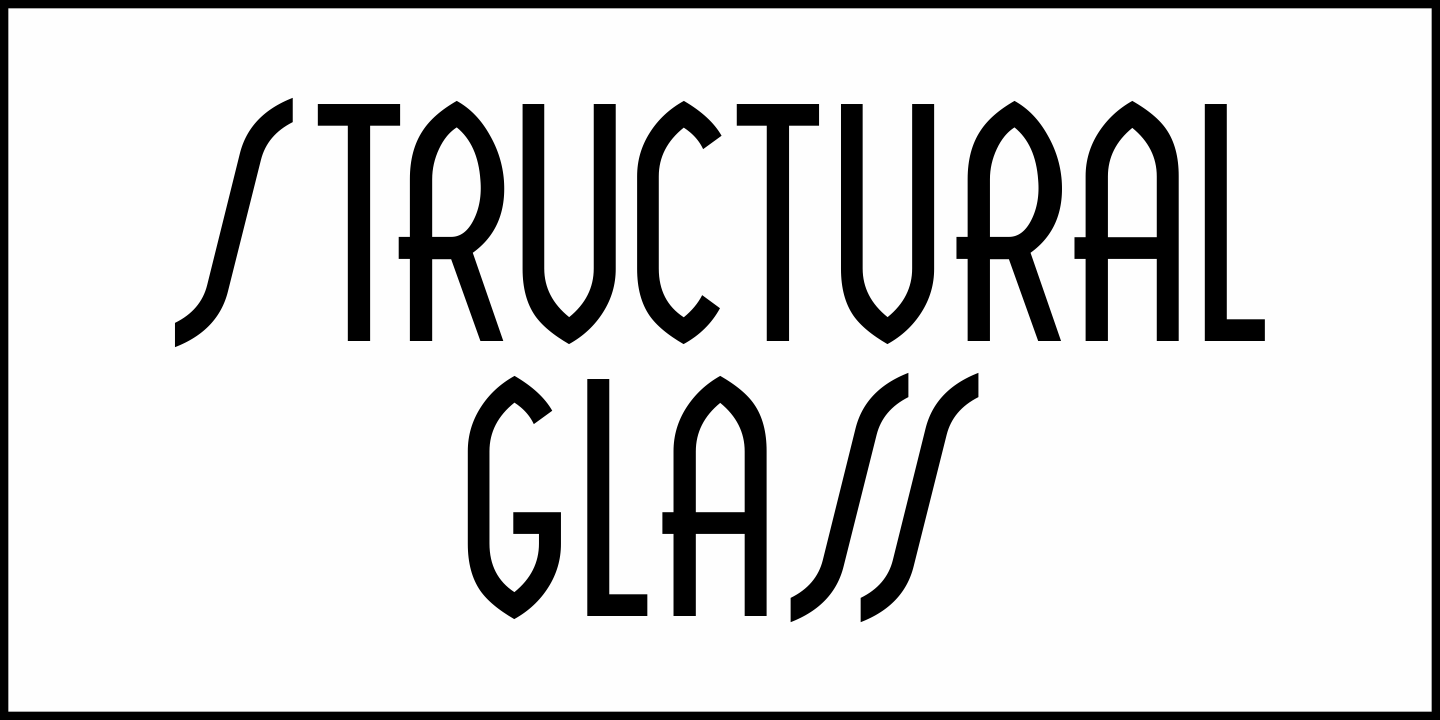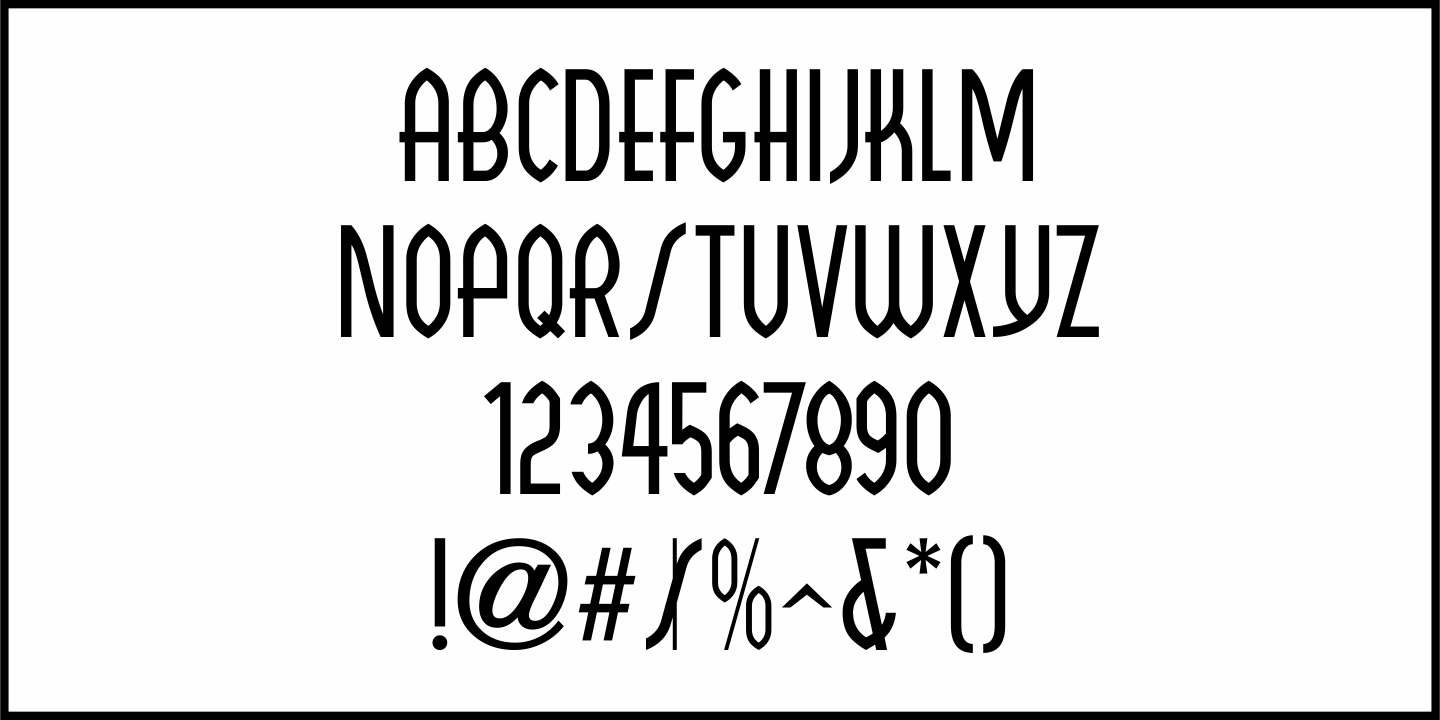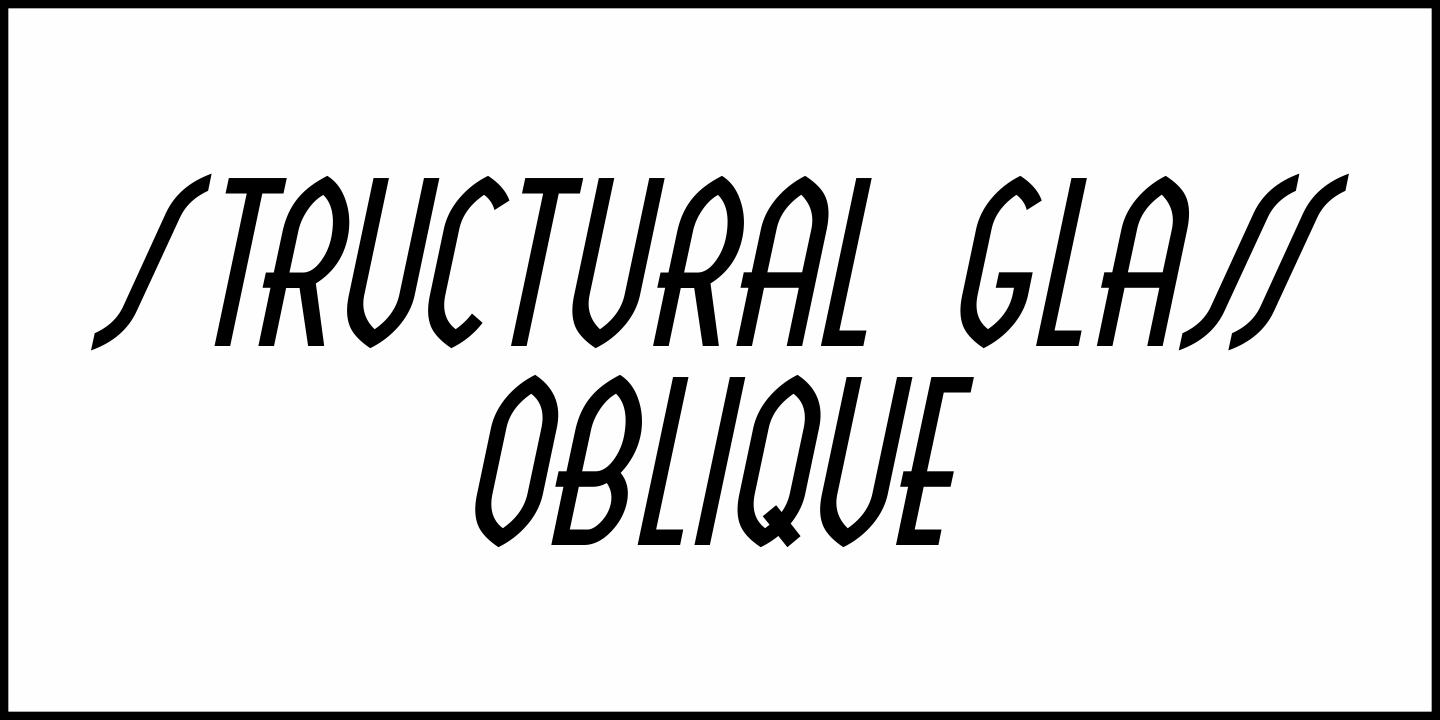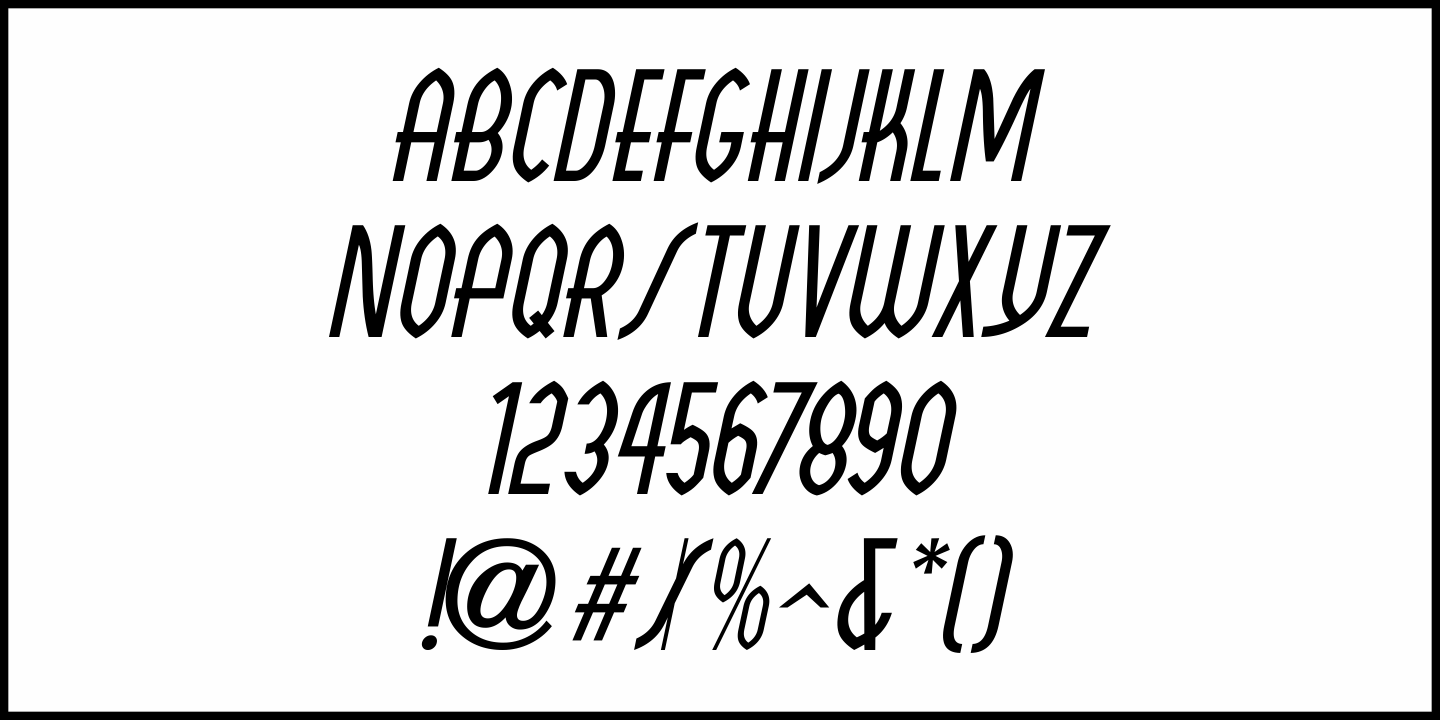
Structural Glass
A page from the 1931 Vitrolite catalog showing illustrations of store fronts and building exteriors utilizing the material provided a classically Art Deco type example.
The business name “Sylvin” did not offer many characters to work with, so completion of the digital type design was simply left to imagination.
The end result is Structural Glass JNL, which is available in both regular and oblique versions
According to Wikipedia:
“Pigmented structural glass, also known generically as structural glass and as vitreous marble, and marketed under the names Carrara glass, Sani Onyx, and Vitrolite, among others, is a high-strength, colored glass. Developed in the United States in 1900, it was widely used around the world in the first half of the 20th century in Art Deco and Streamline Moderne buildings. It also found use as a material for signs, tables, and areas requiring a hygienic surface. Over time, the trademarked name “vitrolite” became a generic term for the glass.”